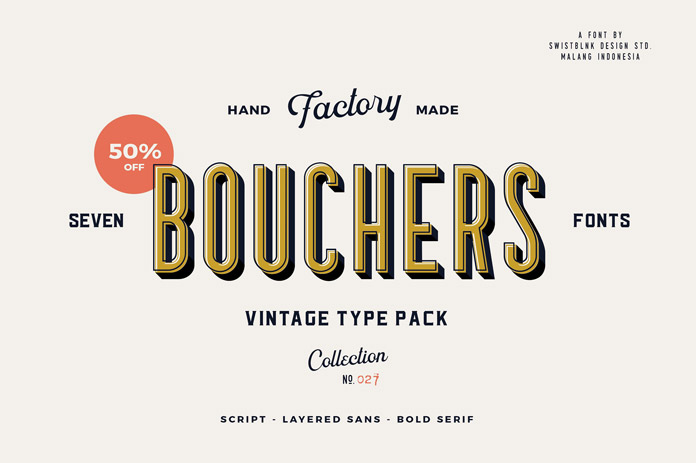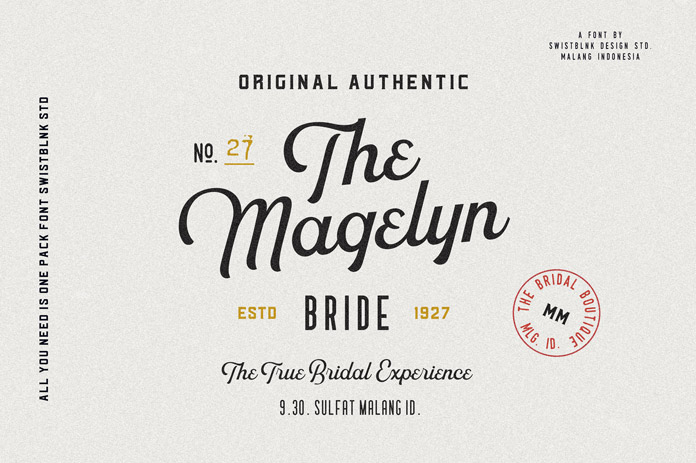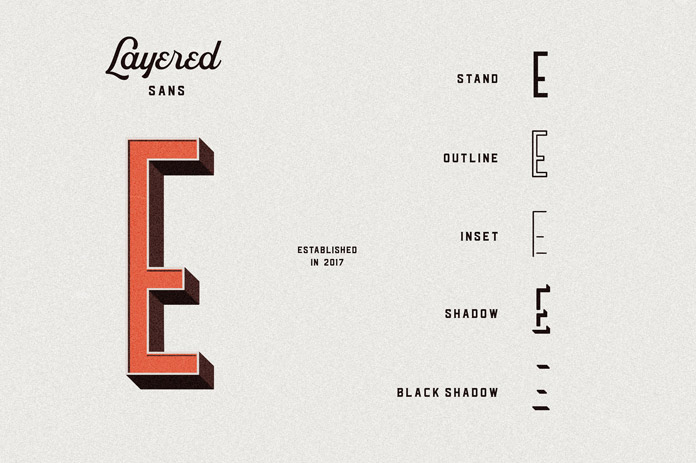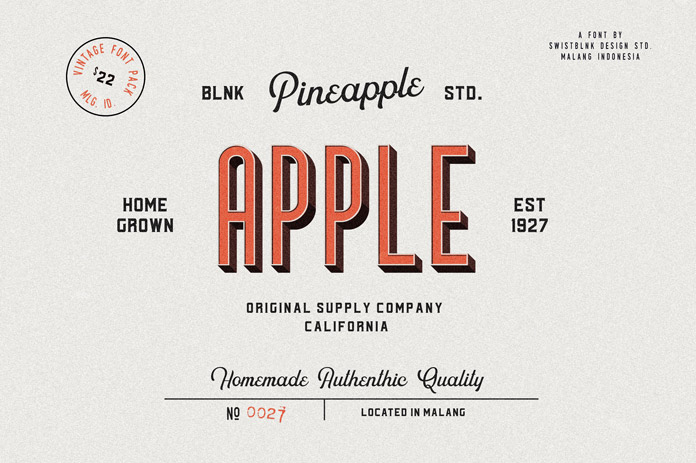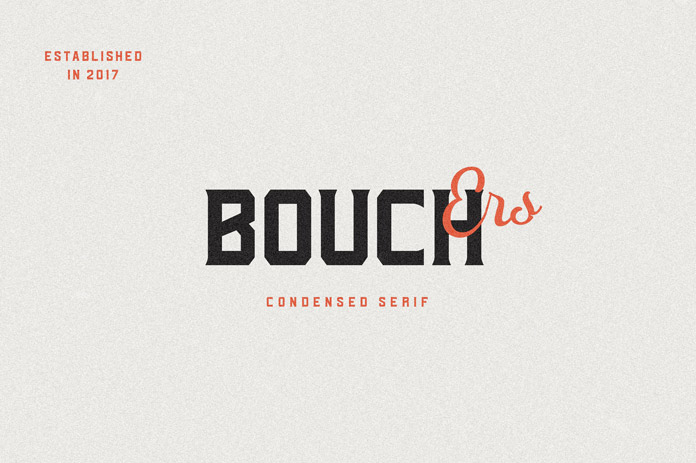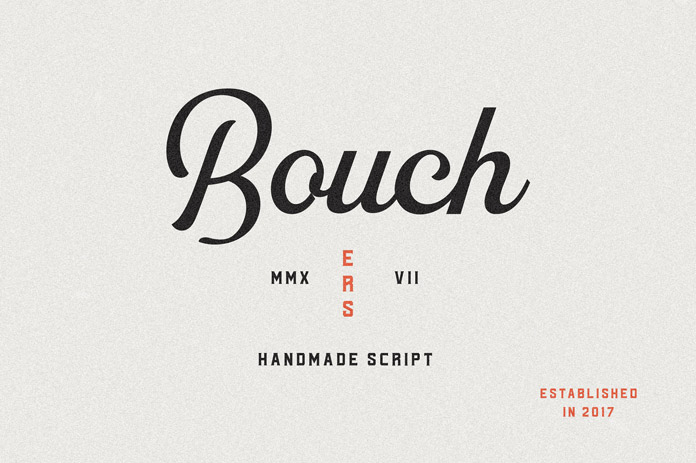
Bouchers, a vintage font collection consisting of a script, layered sans, and bold script typeface.
Look at these beautiful typefaces! Created and published by Swistblnk Design Std, the Bouchers type collection draws inspiration from elegant vintage lettering styles of the 1920s – 50s. The family includes three basic styles, an elegant script version, a bold serif, and a sans serif with numerous lettering styles. All three basic styles work quite well together. Feel free to find some more details below the following image. Please note, the full family is currently on sale on Creative Market, just click on the following link.
The Bouchers type collection consists of Bouchers Stand, Outline, Inset, Shadow, Black Shadow, Serif, and Script. The full family includes upper and lowercase characters, numerals and punctuation marks, etc. You can use these fonts individually or combined to create stylish headlines, logotypes, signs, posters, signage, t-shirts, just to name a few.